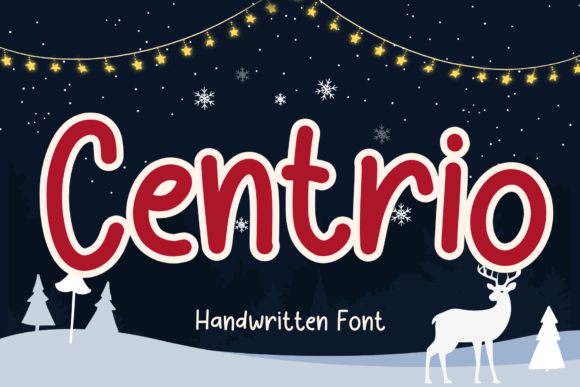
Journey into the realm of creativity with Centrio Font, a mesmerizing script font that dances across your designs with an unrestrained spirit. Its every letter is a testament to the beauty of handwritten artistry, evoking a sense of playfulness and authenticity. Whether you're weaving words for a heartfelt blog post or crafting a captivating logo, Centrio Font is your trusted companion.
With its easy-going charm, Centrio effortlessly captivates the eye, inviting readers to immerse themselves in your creations. It's the perfect font for those seeking a touch of whimsy and uniqueness in their designs. Let Centrio Font's graceful strokes add a personal touch to your invitations, greeting cards, and planners.
Unleash your creativity as you explore the endless possibilities that Centrio Font offers. Its versatility knows no bounds, seamlessly adapting to any project, from branding and advertising to photo albums and decorations. Imagine your designs adorned with Centrio's charming script, captivating your audience with its captivating appeal.
Elevate your designs to new heights and let your imagination run wild with Centrio Font. Its playful nature will ignite your creativity, making every project a joyous expression of your artistic vision. Join the countless designers who have discovered the magic of Centrio Font and experience the joy of creating truly exceptional designs.
Transform your ordinary projects into masterpieces with Centrio Font. Its ability to infuse personality and charm into any design is simply enchanting. Embrace the beauty of handwritten artistry and let Centrio Font guide you towards design excellence.